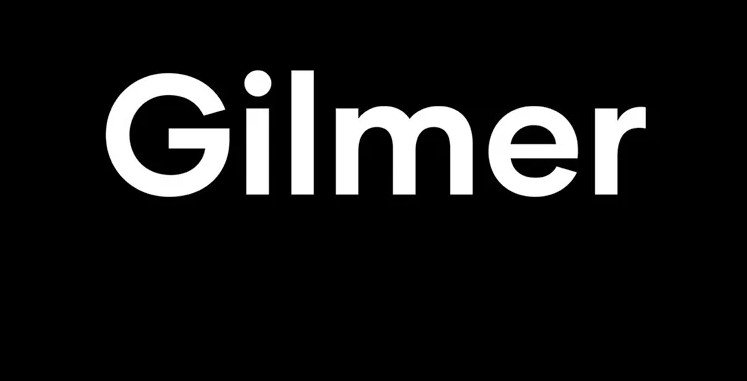
Presenting the new, fantastic, and contemporary typeface known as Gilmer Font—an impressive geometric sans serif font. We strongly encourage you to download and utilize this outstanding typeface that resembles Futura and Avant Grade Font.
It has great accessibility and readability that looks more unique on mobile devices. You can easily deliver your message through your art by creating your designs with this font.
View Of Gilmer Sans Font
This is a super cool extraordinary full of beauty typeface that is great to use with conthrax font which will look perfect in large designs. It contains geometric sans serif designs that will make any project smart.
This is a too smart, beautiful, and stylish typeface that looks best when it will use with granjon font. It contains a large number of glyphs that can combine use in making newspapers, magazines, covers, posters, and other stylish projects for free.